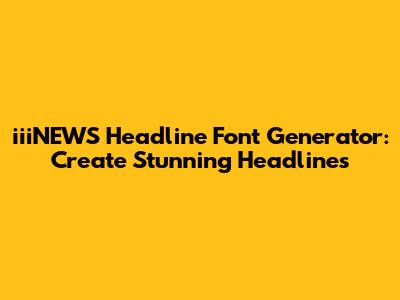
- Social Media Managers: Create engaging headlines for your posts to increase click-through rates.
- Bloggers: Design attention-grabbing titles for your articles to attract more readers.
- Graphic Designers: Experiment with different font styles to find the perfect match for your projects.
- Marketing Professionals: Develop compelling headlines for your campaigns to drive conversions.
- Enter Your Headline Text: Begin by typing your desired headline text into the designated input field. Make sure to proofread your text for any errors before proceeding.
- Choose a Font: Browse through the extensive library of fonts and select the one that best suits your style and purpose. You can use the preview feature to see how your headline will look in each font.
- Customize Your Headline: Adjust the font size, color, and spacing to create a unique look. You can also add special effects, such as shadows or outlines, to make your headline stand out.
- Preview Your Headline: Use the real-time preview feature to see how your headline will look as you make changes. This will help you fine-tune your design and ensure that you're satisfied with the final result.
- Download or Export Your Headline: Once you're happy with your headline, download or export it in your preferred format. You can then use your headline in your social media posts, website banners, marketing materials, and more.
- It's Easy to Use: The tool's user-friendly interface makes it accessible to everyone, regardless of their design experience.
- It Offers a Wide Range of Font Options: With its extensive library of fonts, you'll find the perfect style to match your project.
- It Provides Customization Options: You can adjust the font size, color, and spacing to create a unique look.
- It Offers a Real-Time Preview: The real-time preview feature allows you to see how your headlines will look as you make changes.
- It Provides Download and Export Options: You can download or export your headlines in various formats to suit your needs.
Are you looking to create eye-catching headlines that grab attention? With the iiiNEWS Headline Font Generator, you can transform ordinary text into visually appealing headlines that make a lasting impression. Whether you're designing social media posts, website banners, or print materials, this tool offers a wide range of font options and customization features to help you achieve the perfect look.
What is the iiiNEWS Headline Font Generator?
The iiiNEWS Headline Font Generator is a user-friendly online tool that allows you to generate headlines in various fonts and styles. It's designed to be accessible to everyone, regardless of their design experience. By simply entering your desired text, you can explore a multitude of font options and customize them to suit your specific needs.
This tool is particularly useful for:
Key Features of the iiiNEWS Headline Font Generator
The iiiNEWS Headline Font Generator comes packed with features that make it a versatile tool for creating stunning headlines. Here are some of its key highlights:
Wide Range of Font Options
One of the standout features of the iiiNEWS Headline Font Generator is its extensive library of fonts. From classic serif fonts to modern sans-serif styles, you'll find a diverse selection to choose from. Whether you're aiming for a traditional, elegant look or a bold, contemporary feel, the tool offers fonts to match every aesthetic.
With such a wide variety of fonts, you can easily experiment and discover new styles that you might not have considered before. The tool allows you to preview your headlines in different fonts, making it simple to compare and select the best option for your project.
Customization Options
In addition to font selection, the iiiNEWS Headline Font Generator provides a range of customization options to fine-tune your headlines. You can adjust the font size, color, and spacing to create a unique look that aligns with your brand or personal style. The tool also allows you to add special effects, such as shadows or outlines, to make your headlines stand out even more.